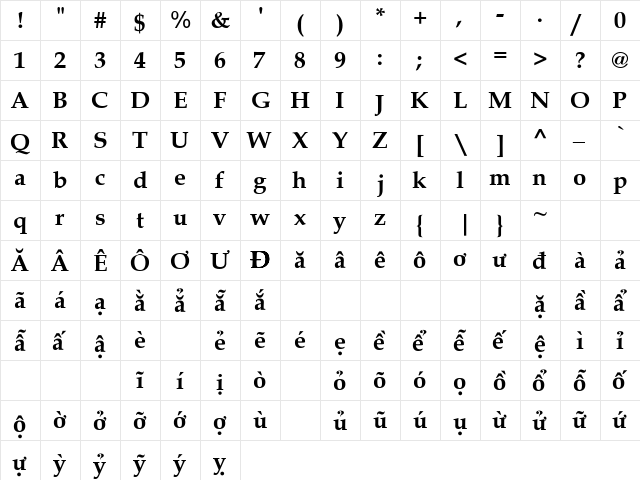
.VnBook-Antiqua Bold
Design Context for .VnBook-Antiqua Typeface
.VnBook-Antiqua is a composed and adaptable typeface that performs quietly and consistently across a wide range of design contexts. The heavy weight commands attention and anchors typographic hierarchies.